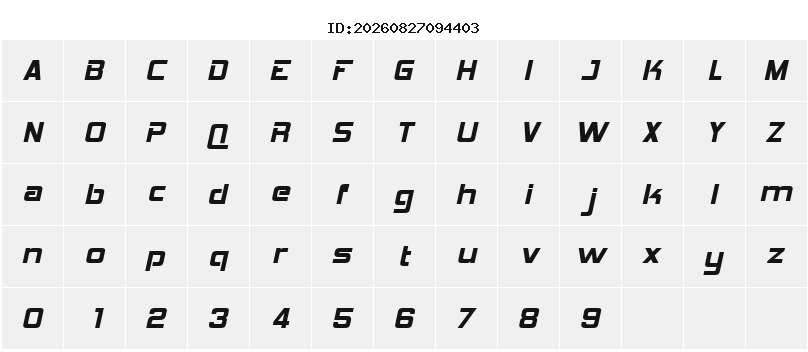
351-CAI978 Preview
• Font Name: 351-CAI978
• Font ID: 351-CAI978:Version 1.00
• Full Font Name: 351-CAI978
• Version: Version 1.00 March 9, 1998, initial release
• PostScript Name: 351-CAI978
• Character Count: 106
About 351-CAI978.ttf
351-CAI978.ttf is a modern, elegant sans-serif font designed for ultimate readability and visual harmony. Perfect for branding, headlines, web design, and print materials.